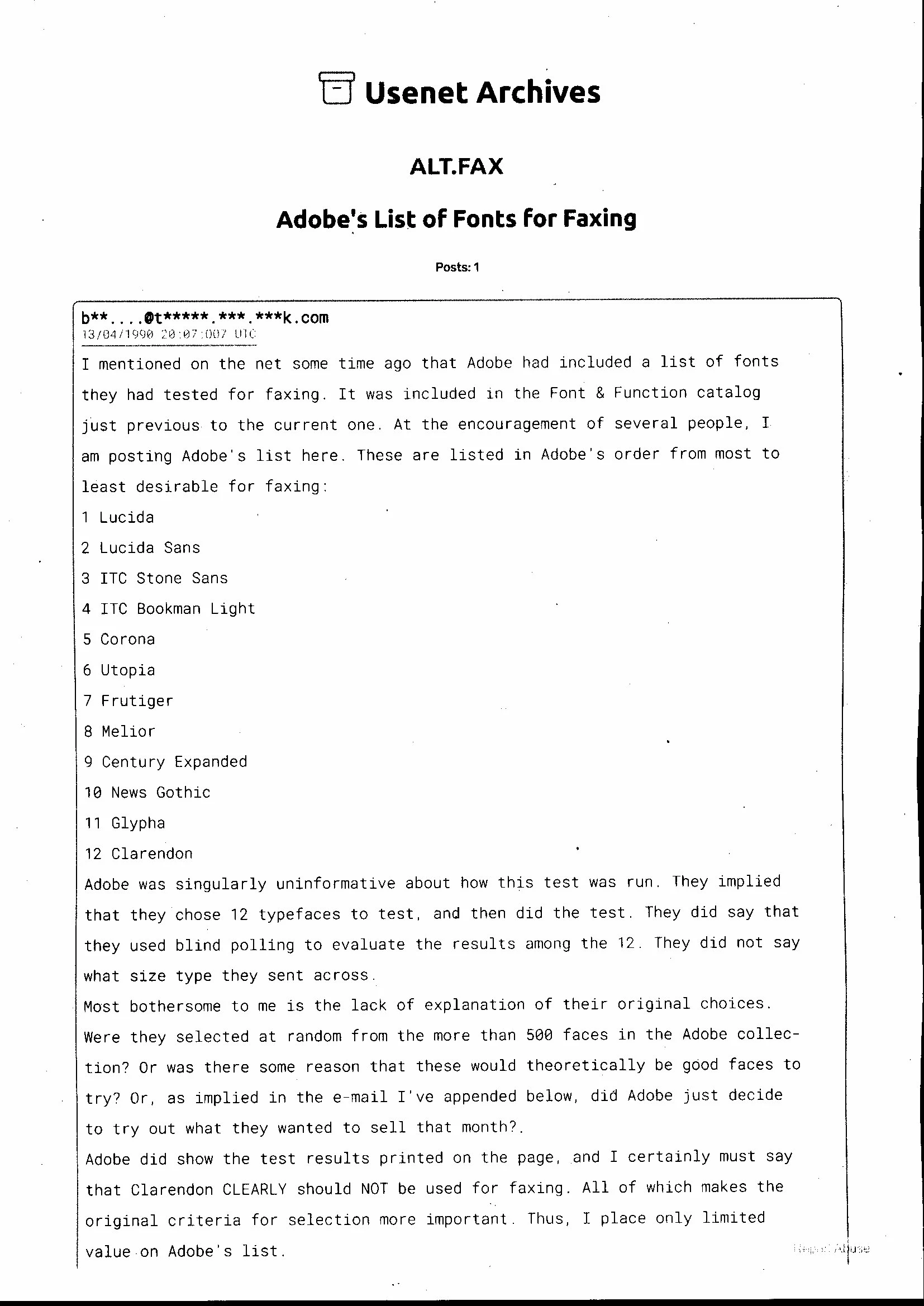
Fonts for faxing: 1980s Adobe Systems study
In another forum I read that there was a study published by Adobe in the 1980s to find the best suitable font for faxing. Unfortunately I can't enter there to inquire any further. Does anyone here know anything more about this study or even where I could find it?
In 1983 I invented a faxable font that was pixel accurate and was used to send purchase orders to vendors with all the information to enter the lot at receiving. It was sent completely electronically using a fax modem. The computer system extracted information from the company MRP system using an emulator catd in a PC then automatically sent the orders while the purchasing agents were at lunch. At that time no one else had a font that was pixel accurate for faxing - not even Adobe.
I'm fairly certain what you've run into is a myth, possibly via communication errors over time.
Fonts as we know them aren't transmitted in a fax as they are with documents saved as files. Fax machines convert scans One of the first and most popular fonts created with faxing in mind was Lucida Fax... which interestingly is a slab serif rather than a sans serif. But it works because of the shapes and specific application of serifs to enhance legibility.
Here's some material if you want to delve more deeply into it. Perhaps one of these will lead you to what you're looking for and if you do find it, please let me know.
This, unfortunately, is not what I asked about. I know how a fax is transmitted and I know about Lucida Fax, but I read that there was a test of some sort initiated by Adobe in the 80s, so before Lucida Fax was released in 92. This study was made to rank typefaces and their legibility after being transmitted via fax. Of course, this was a hot topic at the time. I'm really keen on finding more about this study and how it was conducted. The results that were published seem a bit random. I attached the file that I dug up ...
I just read my post and apparently I inadvertently deleted a paragraph or two before I saved the post...
"Fax machines convert scans One of the first and most popular fonts created..." is a nightmarish fused sentence that I never would have written intentionally. Lol
I don't remember specifically what was in the missing content but there were several links including this one. https://blog.typekit.com/2014/08/20/the-adobe-originals-silver-anniversary-story-a-community-perspective-on-the-originals-program/
I listed several links to documents from Adobe during that time period about fonts and faxes but they weren't specifically what you were looking for. I do remember seeing several posts that described it as being an urban legend. I spent quite a bit of time researching it because it would be a fascinating find but like you, after spending several hours on it, including time looking through the wayback machine, I decided that it likely wasn't there.
I really wish I could have found it. Perhaps when I have some more time I'll dig some more for it but It's been enough time on it that I'm pretty sure that it's just not there.